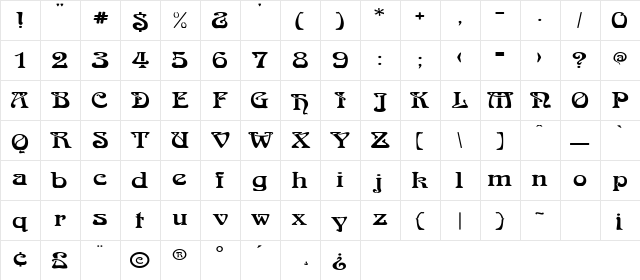
51 Regular Font Preview
51 Regular
Design Context for 51 Typeface
51 is a composed and adaptable typeface that performs quietly and consistently across a wide range of design contexts.